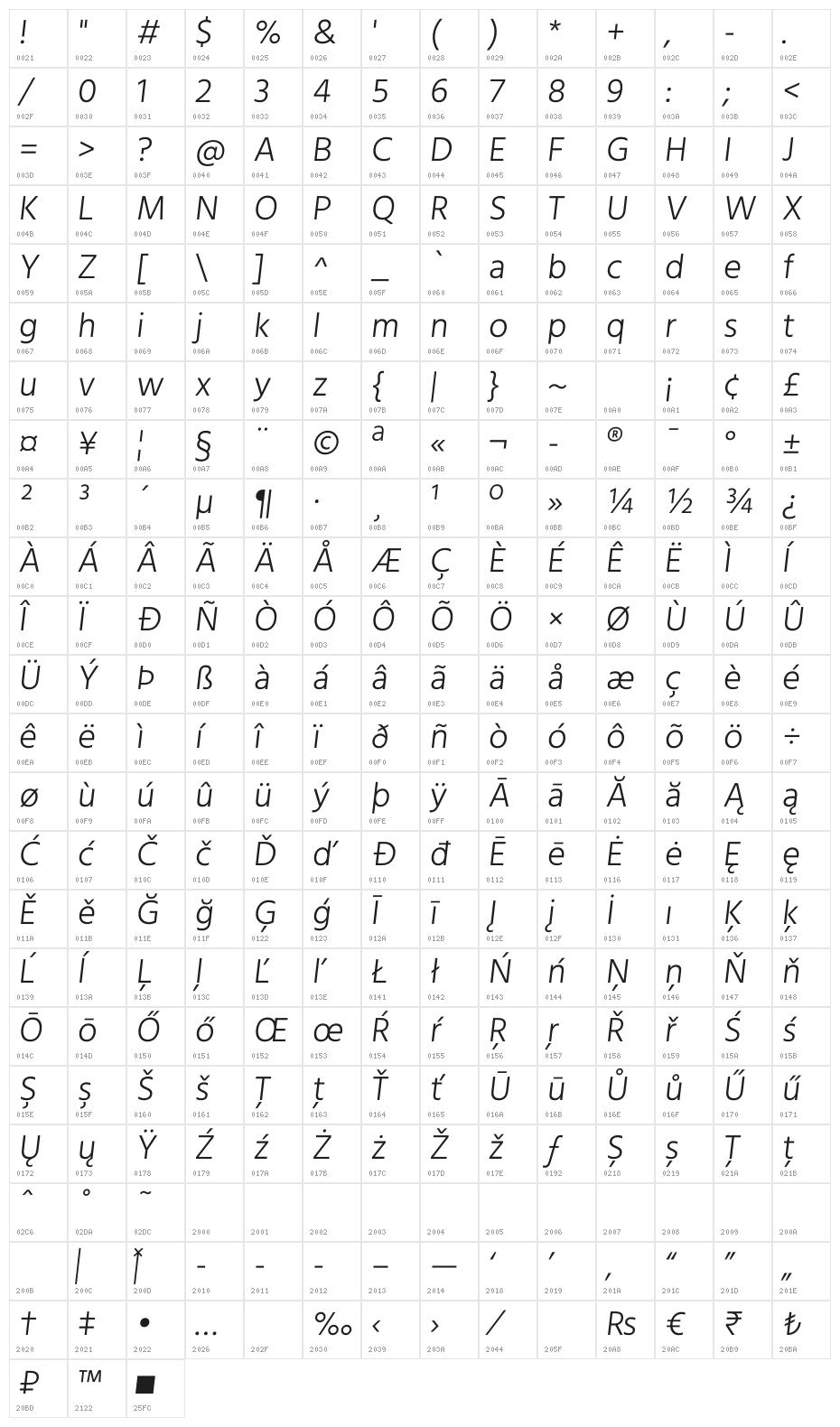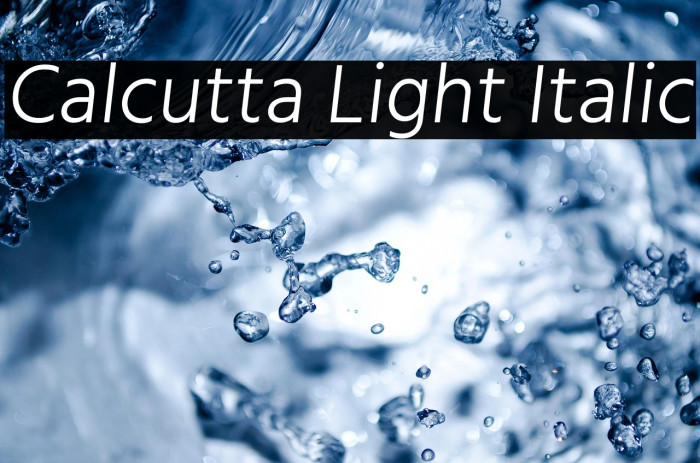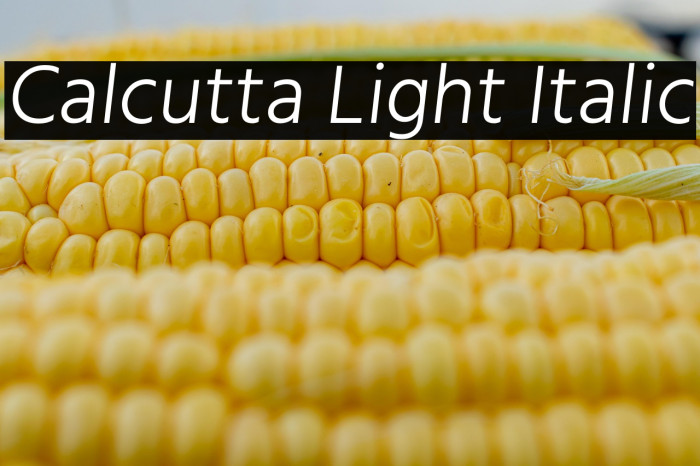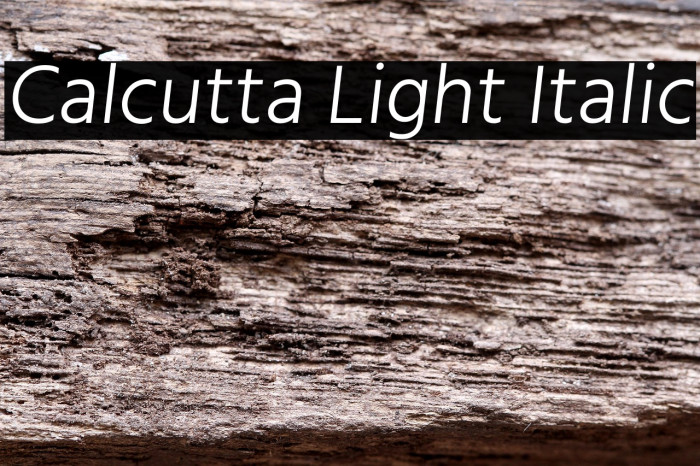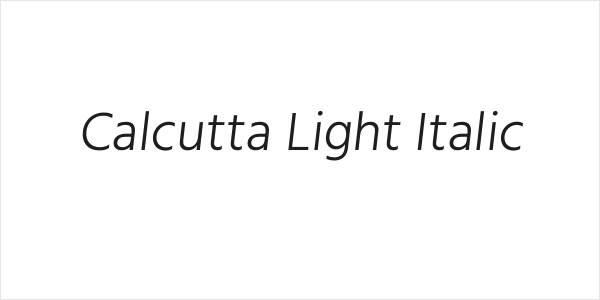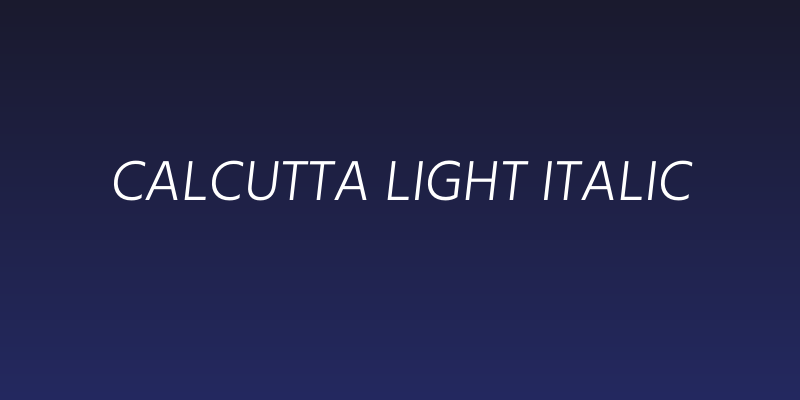
Calcutta Light Italic Font
Calcutta Light Italic Description
This font features a sleek and modern design with a light weight and italic style. The characters are elegantly slanted, providing a sense of motion and fluidity. The sans-serif design ensures a clean and uncluttered appearance, making it highly legible. The strokes are consistent and smooth, with a medium contrast that adds a subtle dynamic quality without being overpowering. The character spacing is normal, allowing for easy readability while maintaining a stylish and contemporary look. This font is versatile, suitable for a variety of design projects that require a touch of sophistication and modernity.
| Proposed Projects | Ideal for branding, editorial design, websites, and advertising materials. |